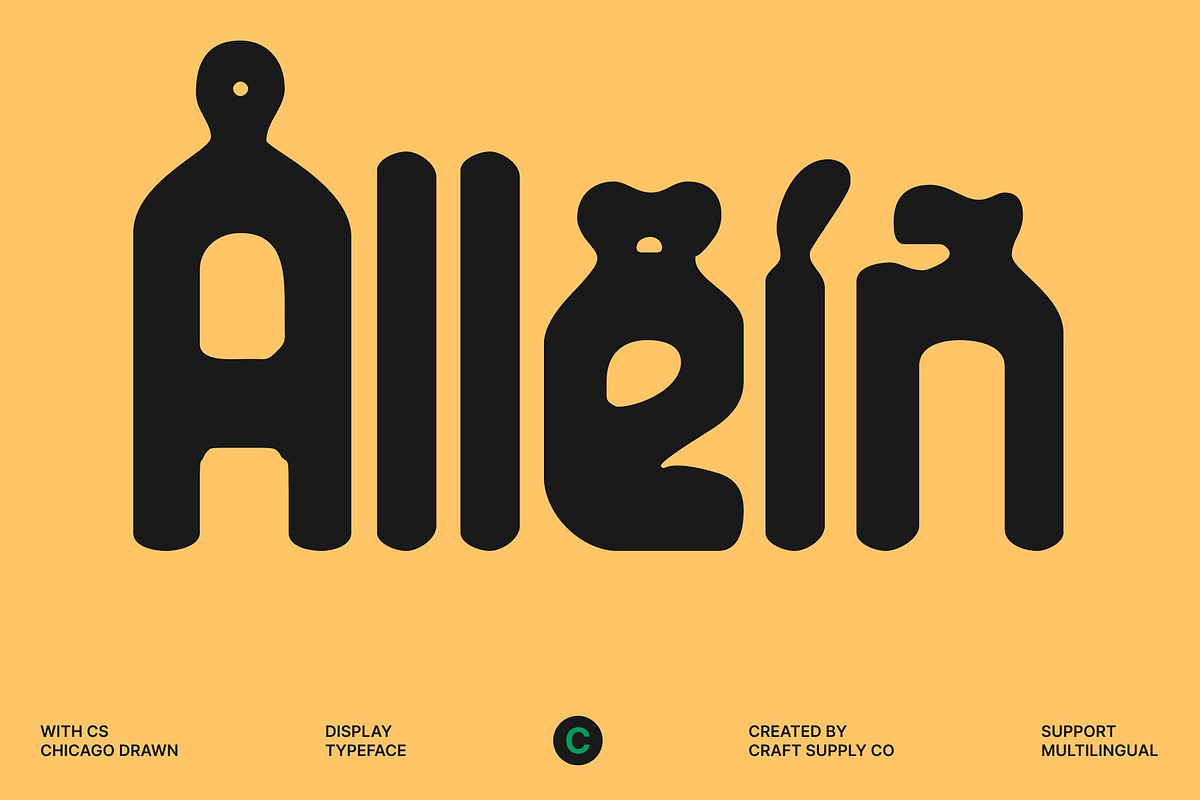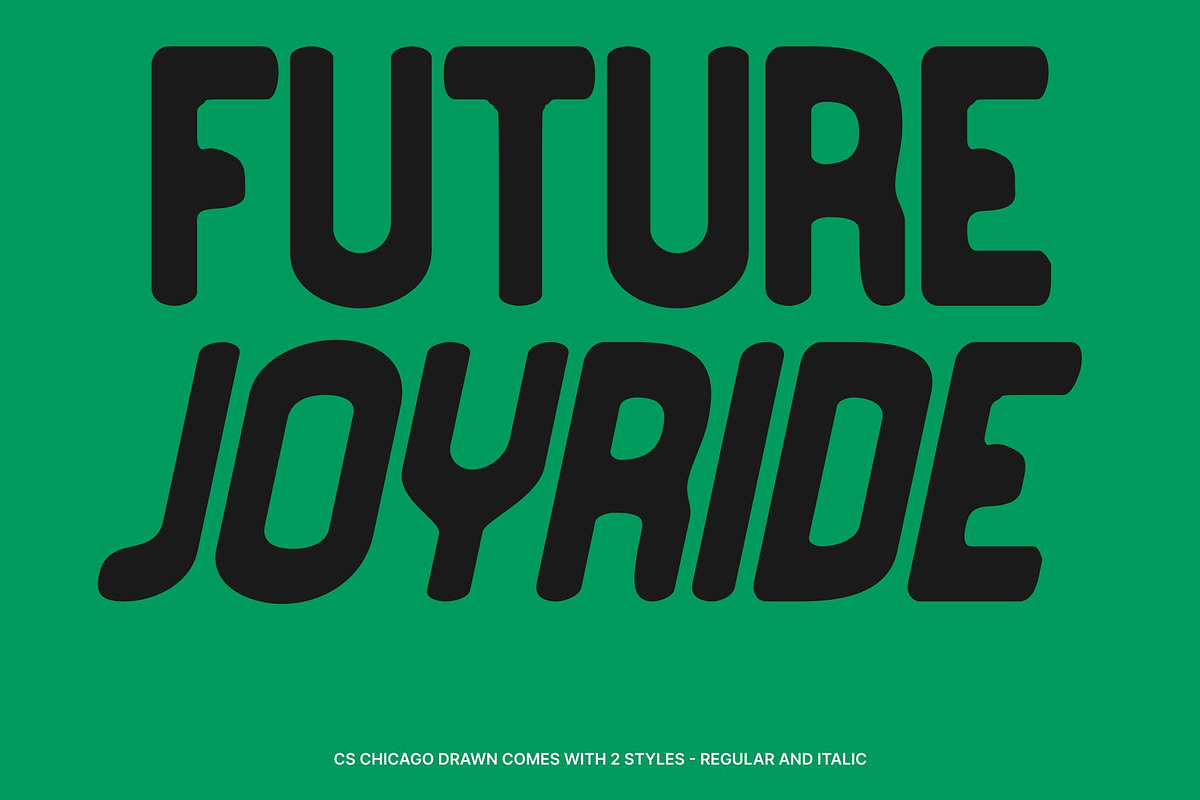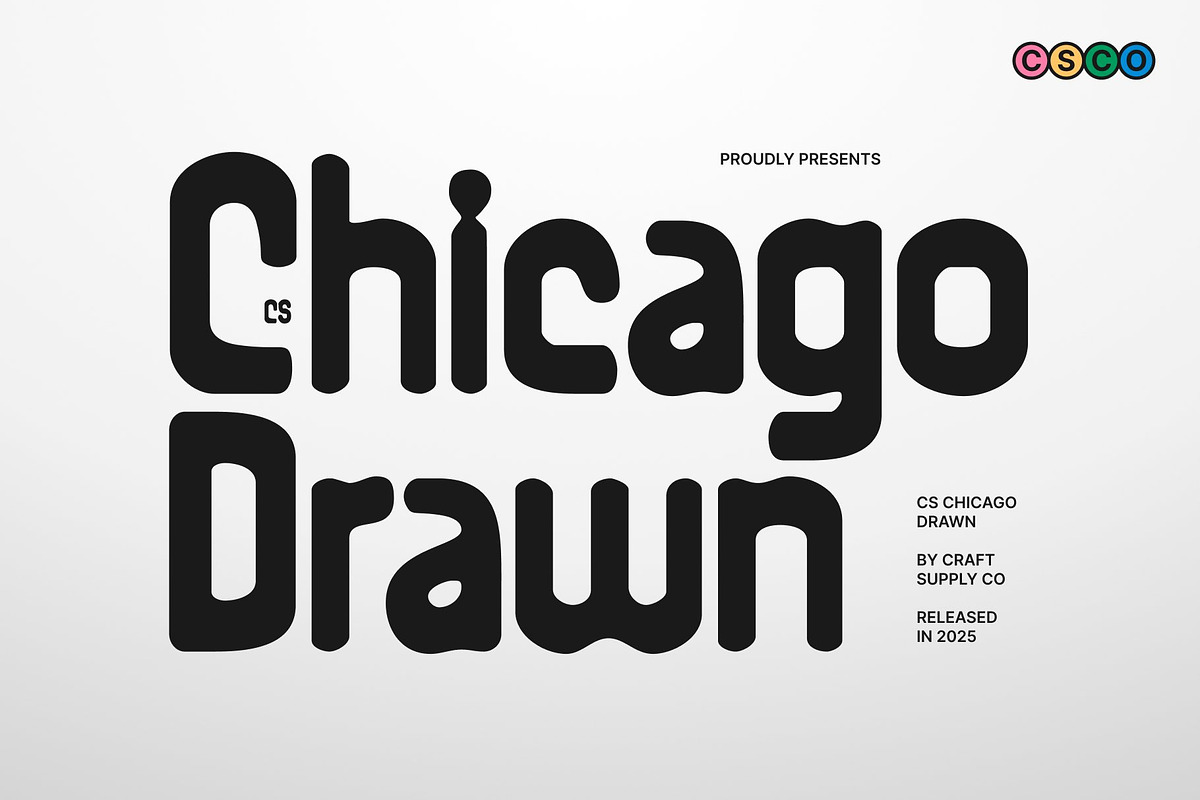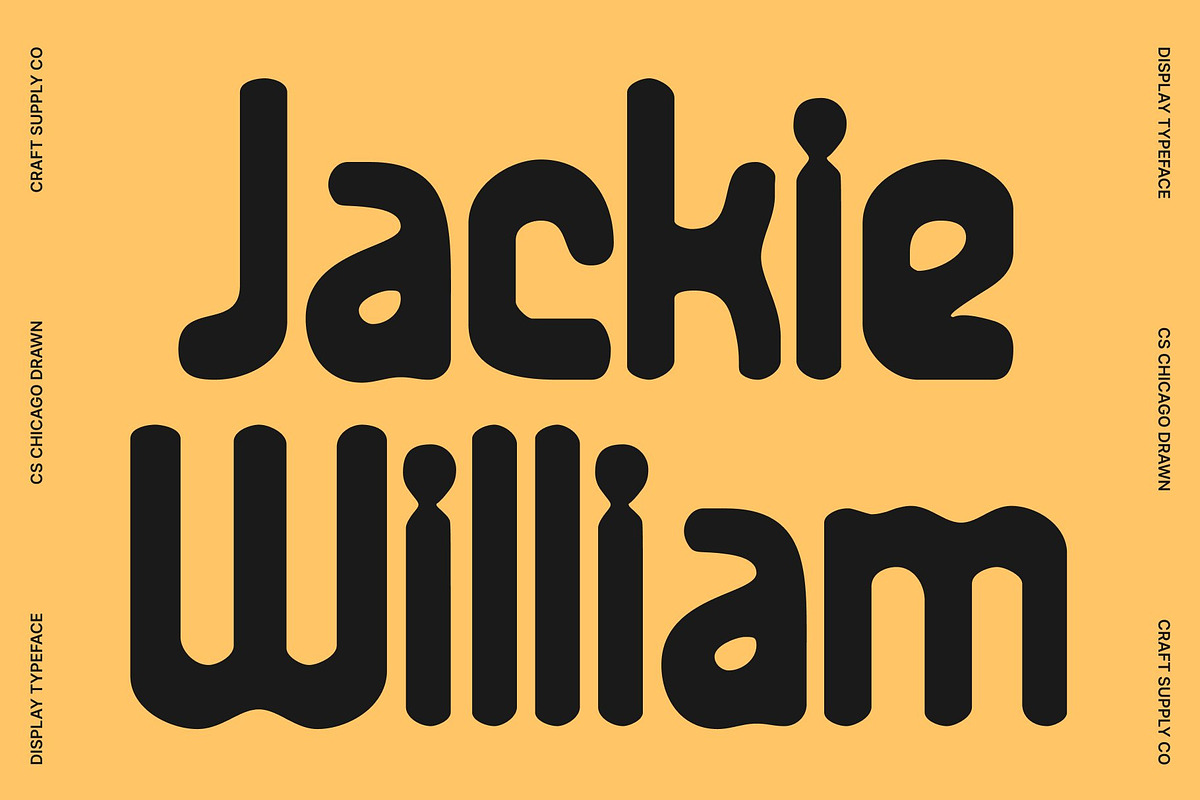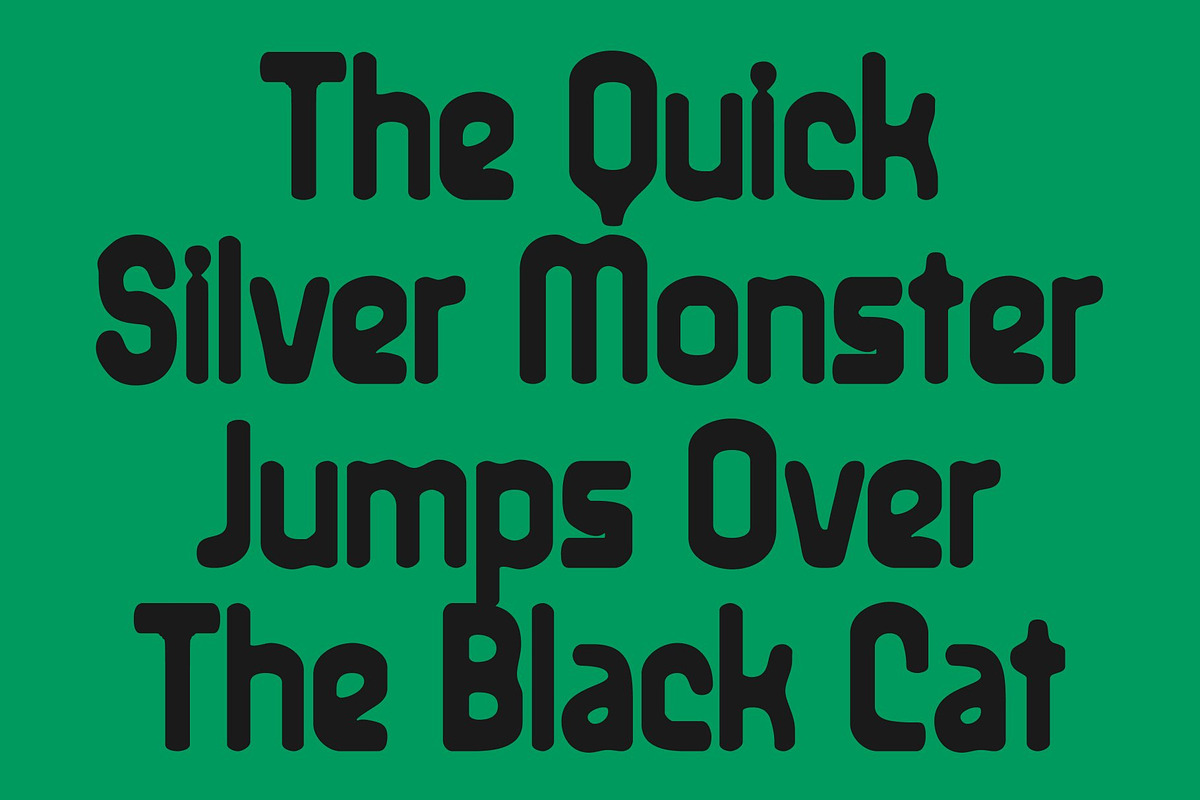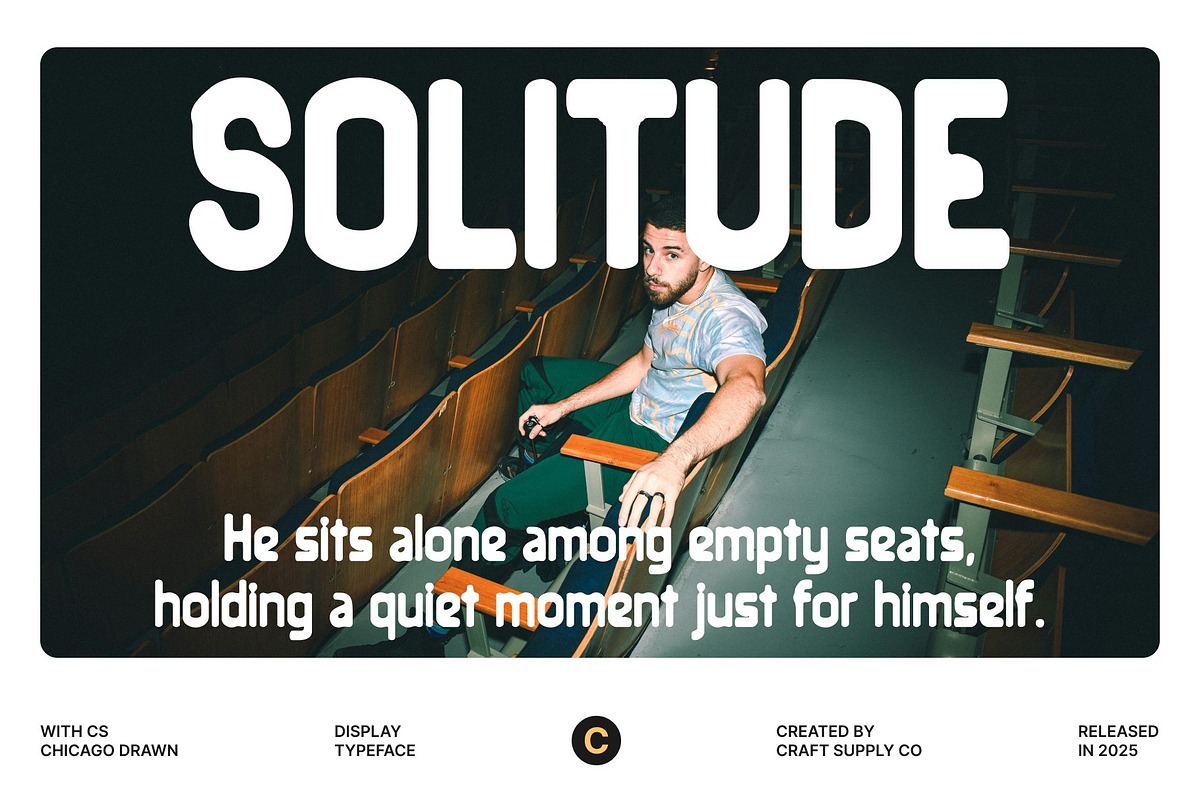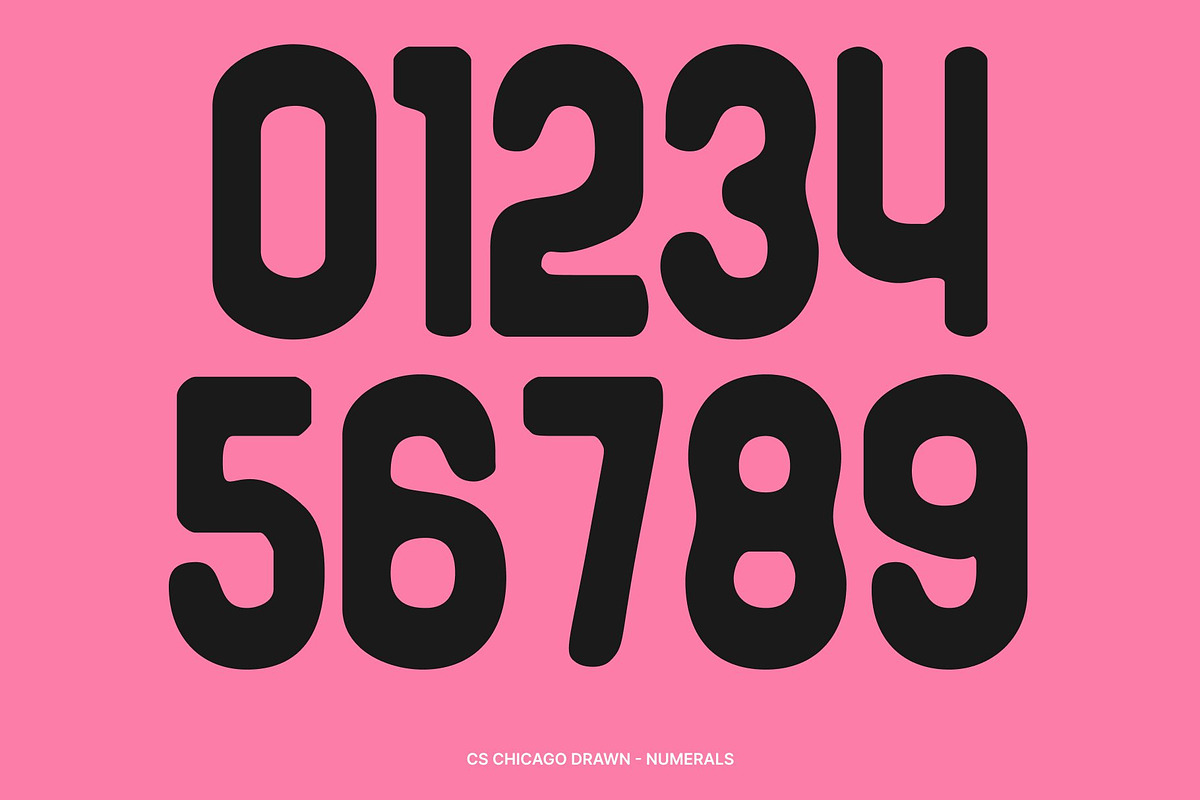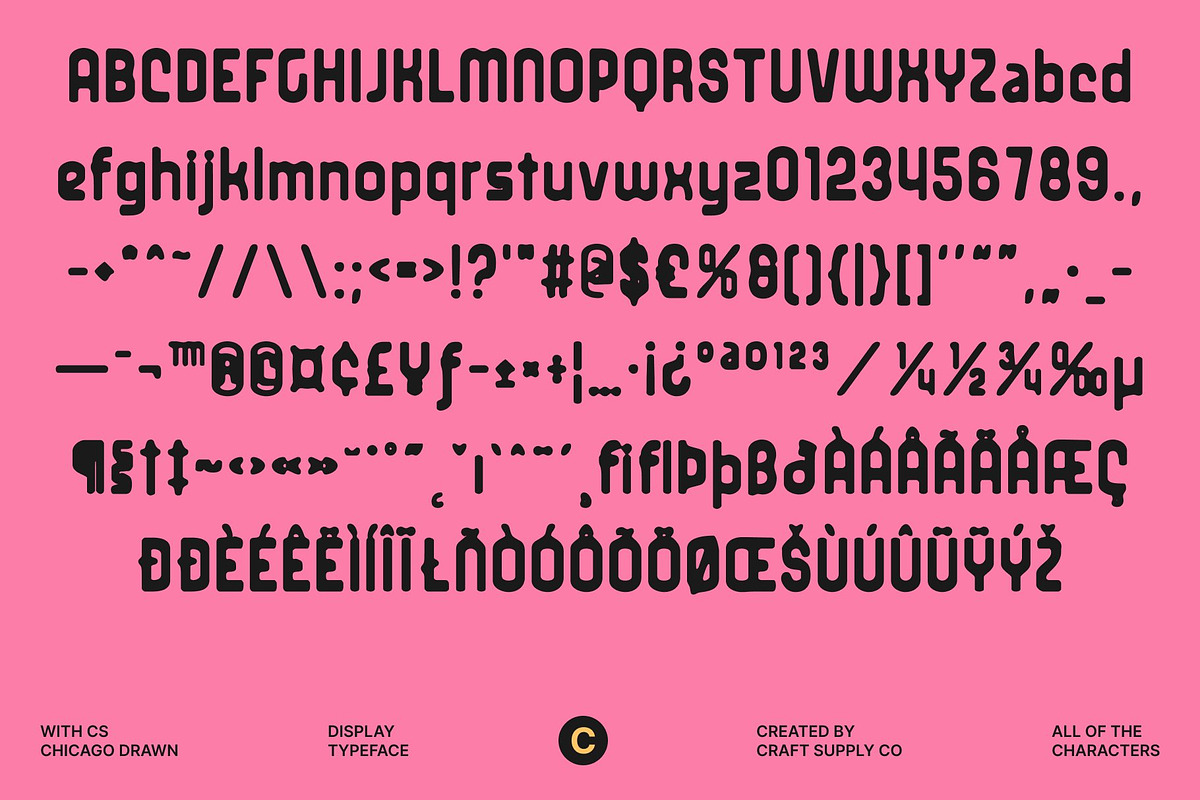
CS Chicago Drawn
CS Chicago Drawn – Where Retro Vibes Meet Techno Energy
Modern Display Sans Serif with Futuristic Flair This is an edgy display sans serif font that blends modern sophistication with retro-inspired attitude. Its sleek construction and confident letterforms create a sharp visual presence, while the drawn texture adds character and depth. Inspired by techno culture and digital-era aesthetics, this font feels bold, energetic, and unmistakably contemporary.
Techno Structure with a Retro Soul Built on strong geometric foundations, This font balances precision with expressive rhythm. Subtle retro influences soften its futuristic edge, giving each letter a sense of movement and personality. This fusion of techno-inspired structure and nostalgic undertones creates a distinctive style that feels both forward-looking and timeless.
Perfect for Branding and High-Impact Visuals This font excels in branding, logos, posters, album covers, and promotional graphics. Its commanding presence and clean readability make it ideal for projects that demand energy, clarity, and style. From tech startups and creative studios to music events and digital campaigns, this font delivers powerful visual impact.
Bold, Stylish, and Distinctly Modern More than just a typeface, This font is a statement of modern creativity. Its seamless mix of retro charm and futuristic precision makes it highly versatile across print and digital media. Use this font to give your designs a dynamic rhythm, confident tone, and unmistakably modern edge.
- CS Chicago Drawn Regular
- CS Chicago Drawn Italic